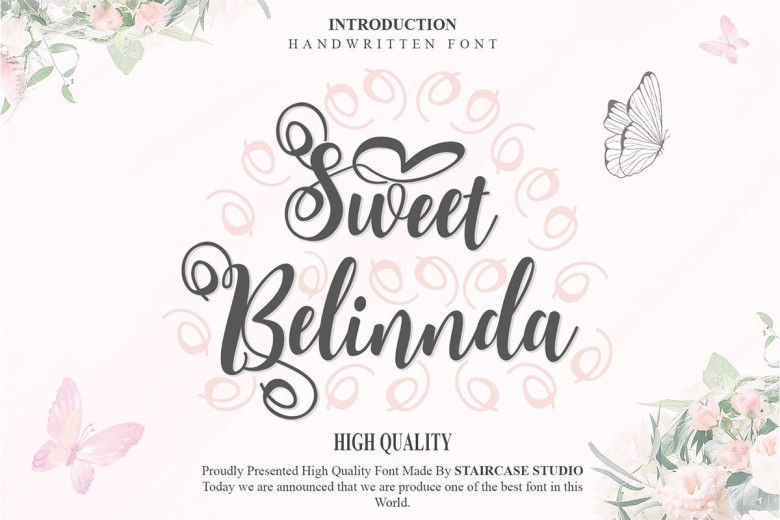
Sweet Belinnda Calligraphy Script Font
Sweet Belinnda Calligraphy Script Font Has Stylistic alternate, ligatures and ending lowercase. and includes uppercase and lowercase letters, numbers and punctuation. You can create perfect and unique design of your wedding postcard, branding, invitations, quotes, prints, and many more.